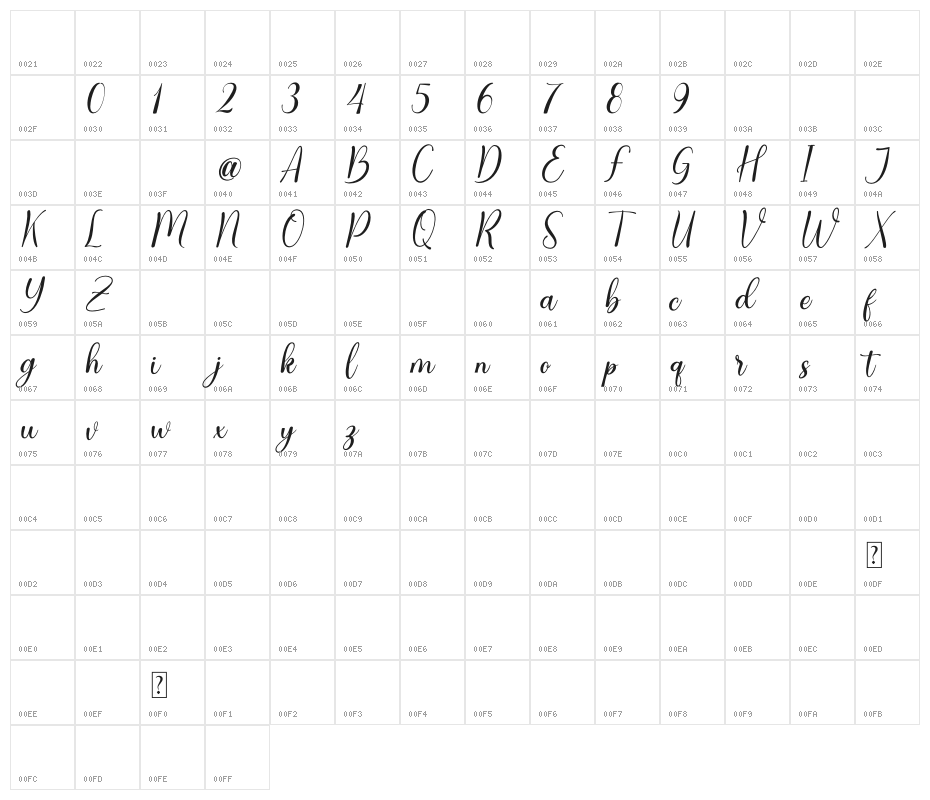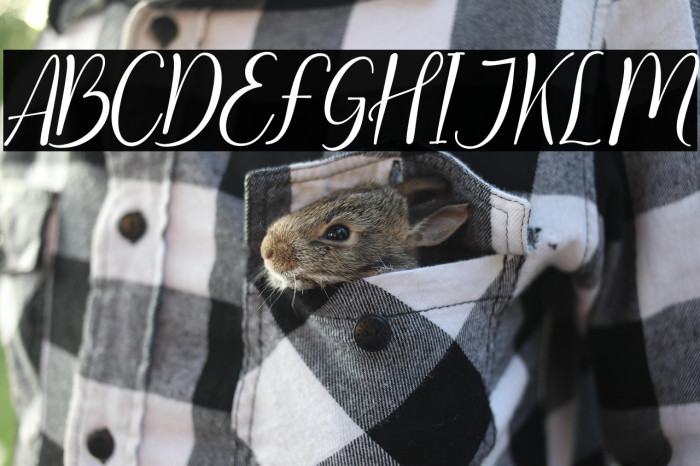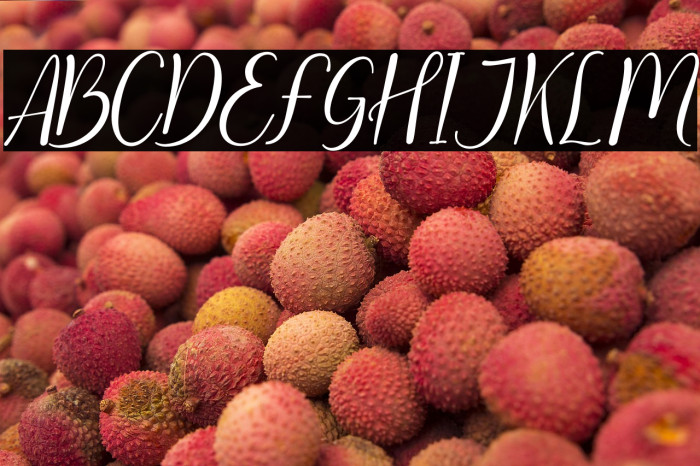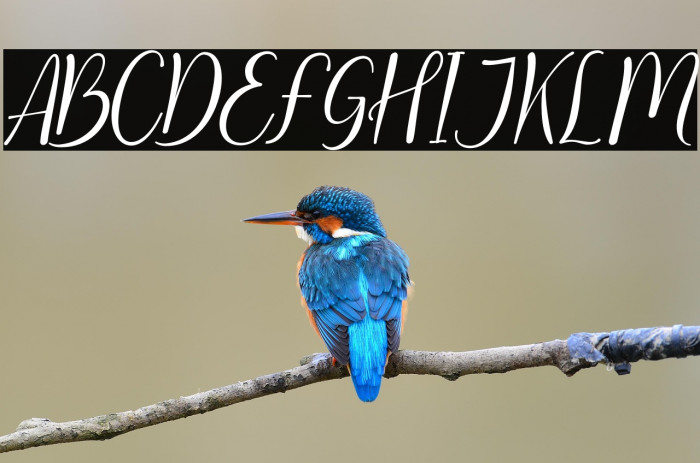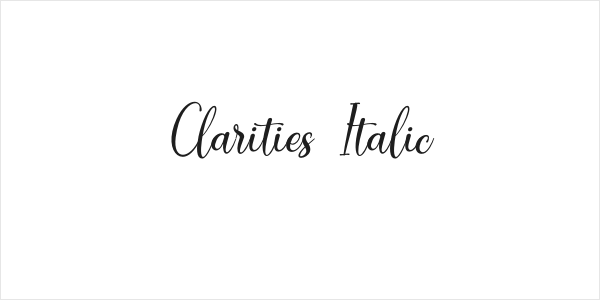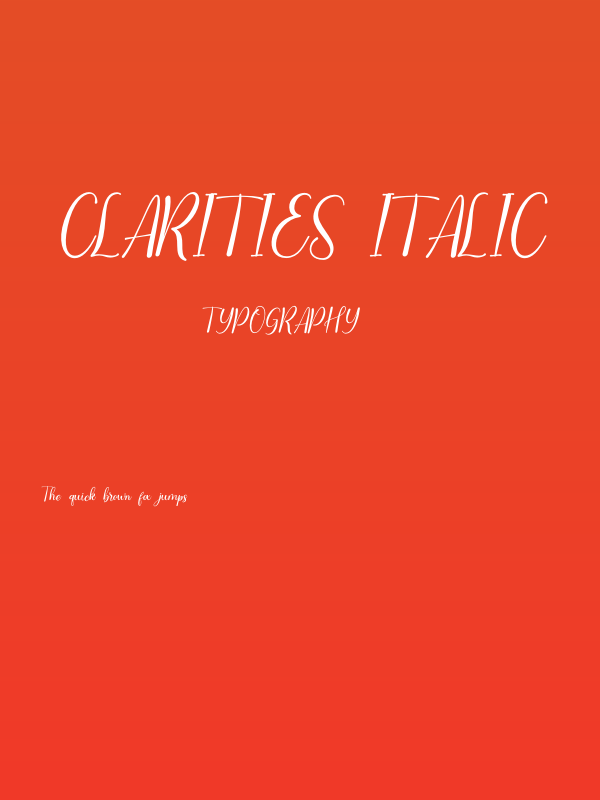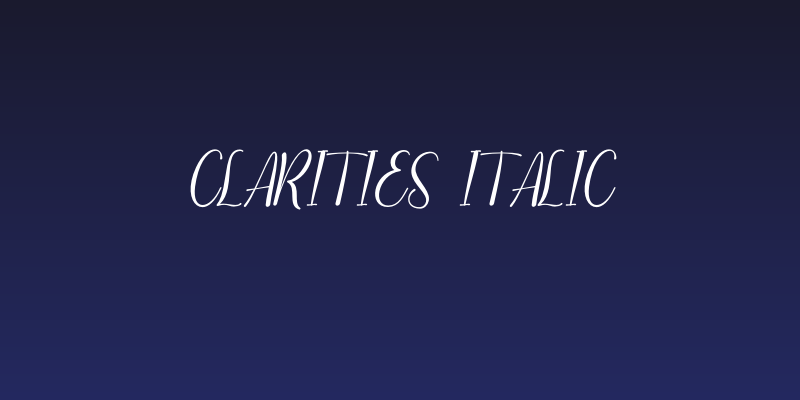
Clarities Italic Font
Clarities Italic Description
This elegant script font features a flowing, cursive style with a distinct italic slant. The uppercase letters are tall and graceful, with sweeping curves and delicate loops, while the lowercase letters maintain a consistent fluidity and charm. The numerals are stylishly integrated, complementing the overall aesthetic. The font's design is both sophisticated and approachable, making it suitable for a variety of creative applications. Its smooth, continuous strokes and moderate contrast in line thickness add to its refined appearance, making it ideal for projects that require a touch of elegance and personality.
| Proposed Projects | Ideal for wedding invitations, greeting cards, branding, and elegant logo designs. |